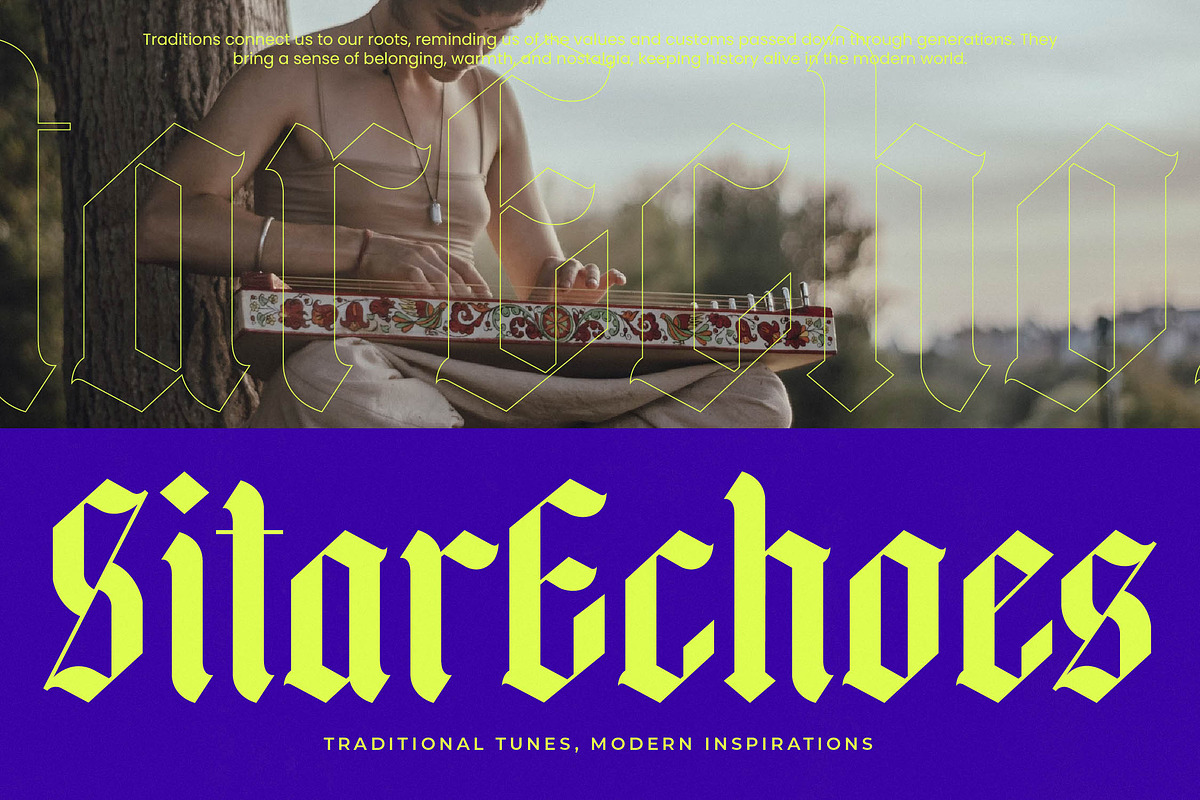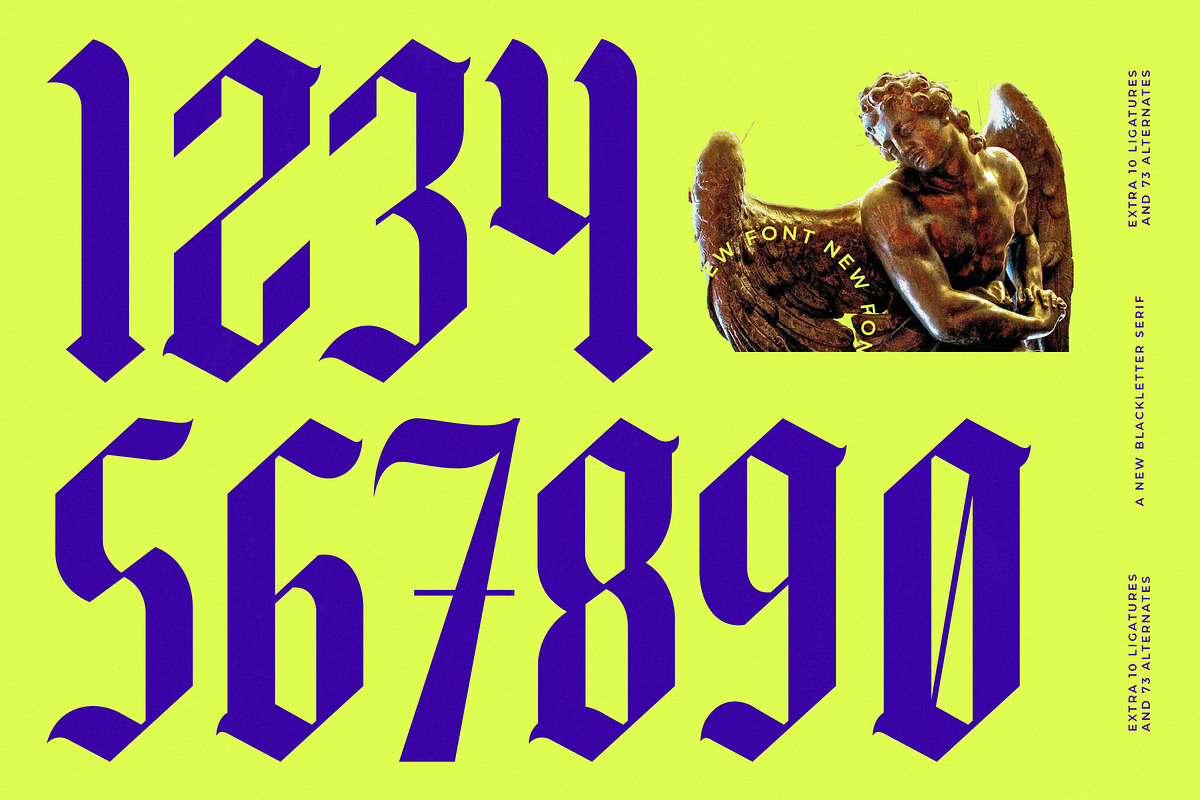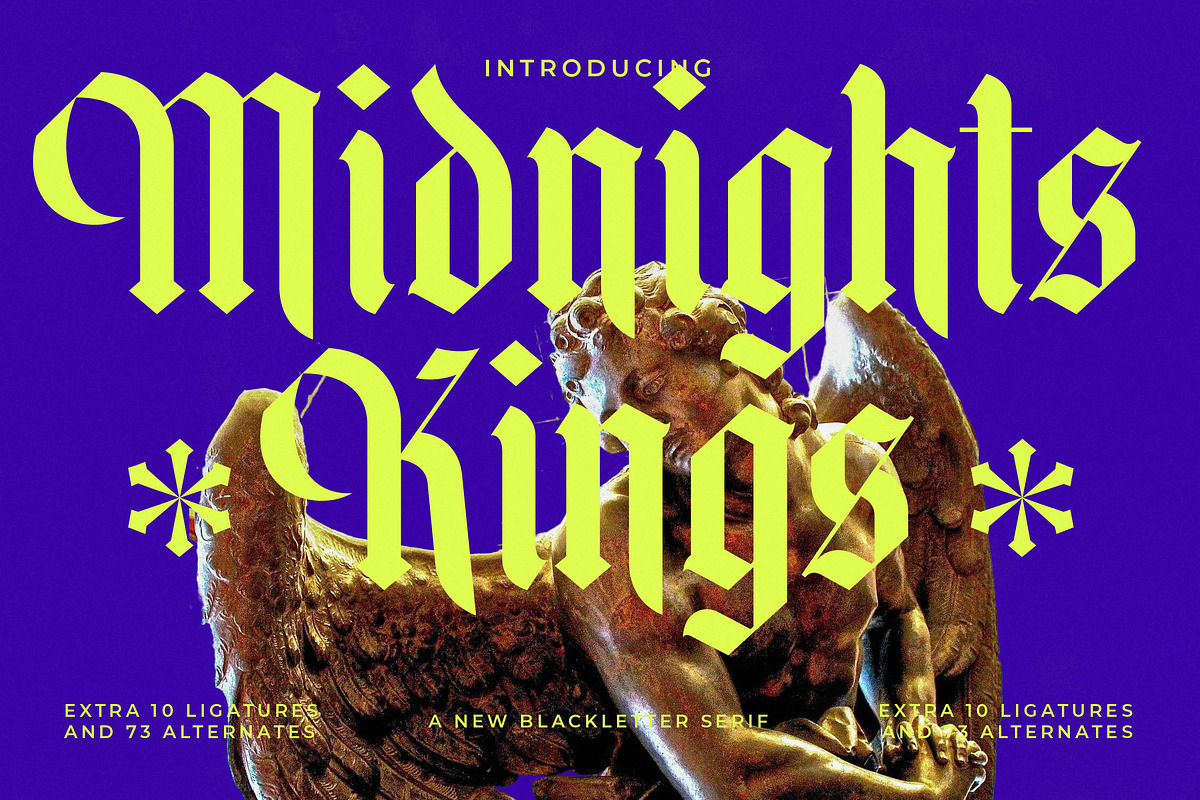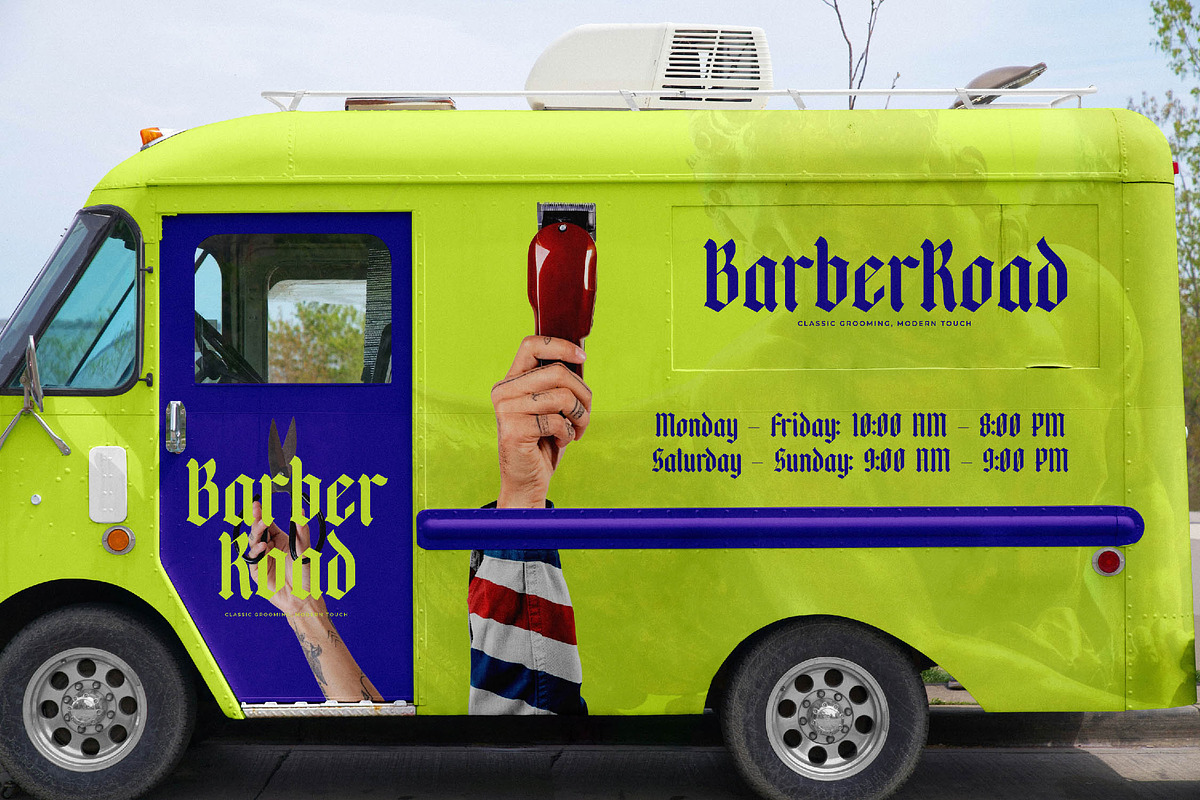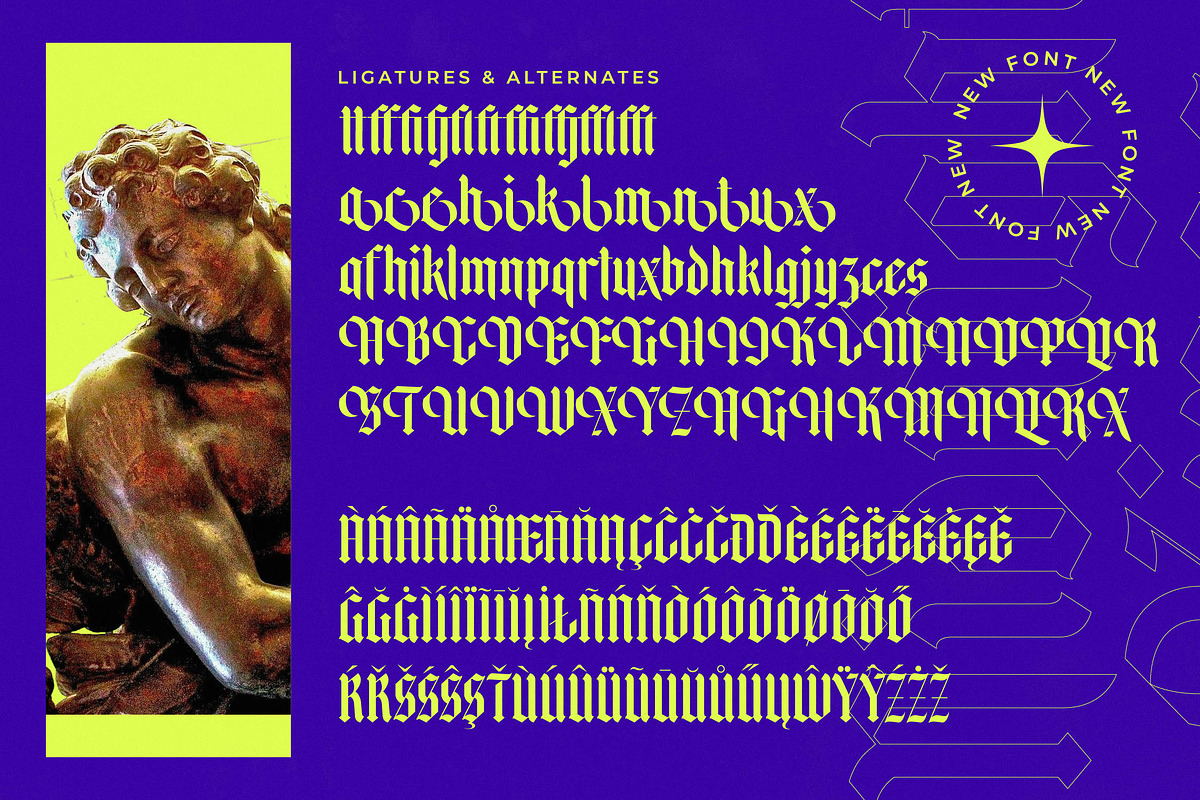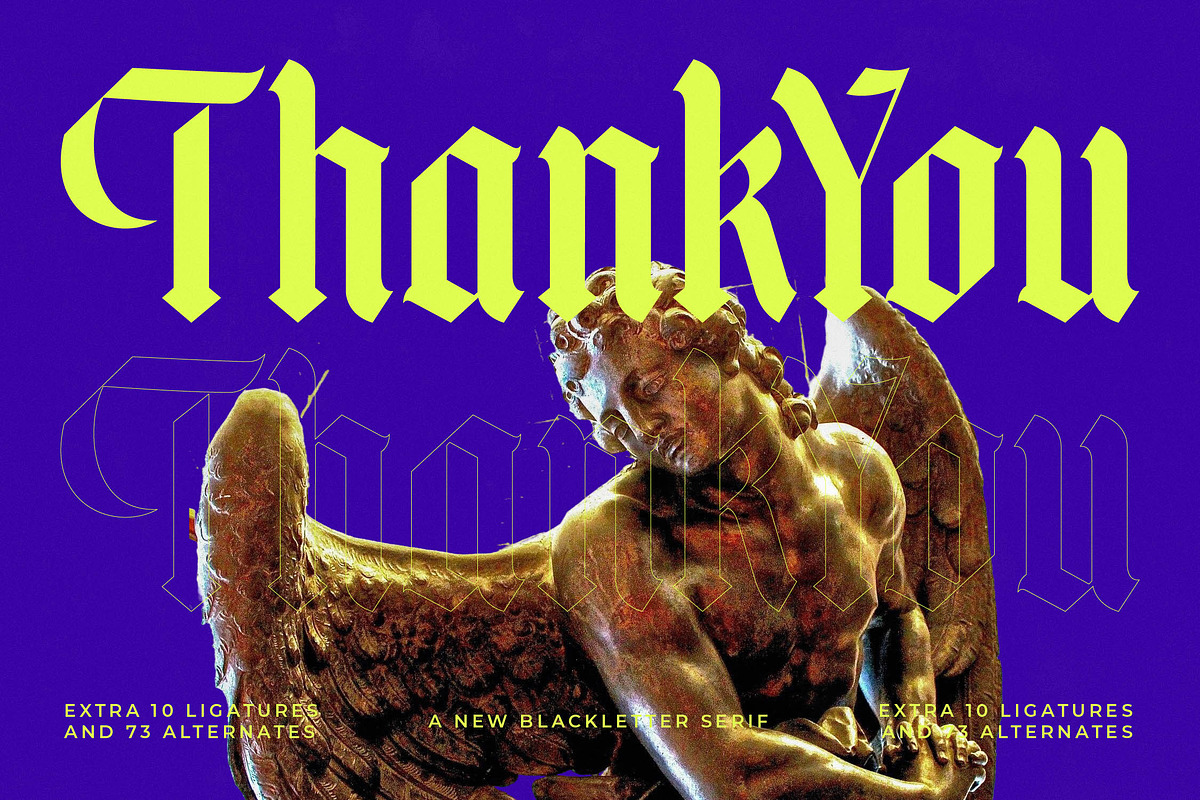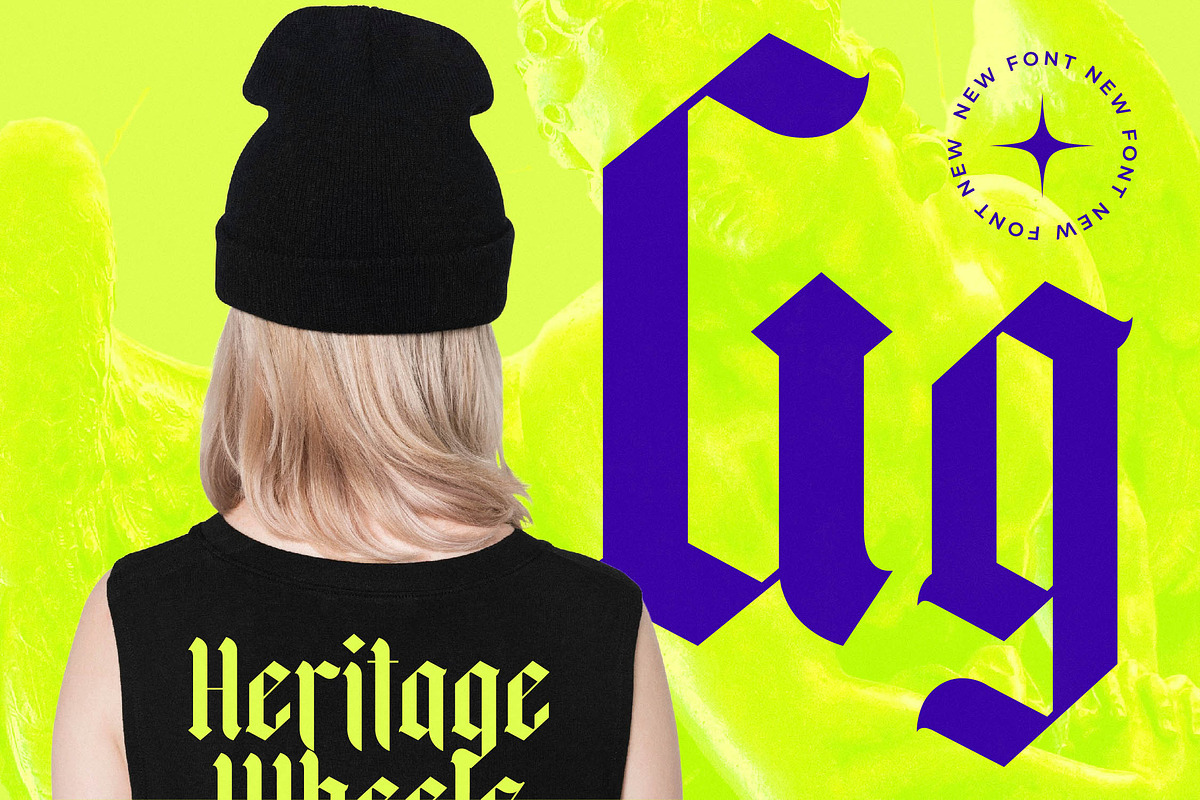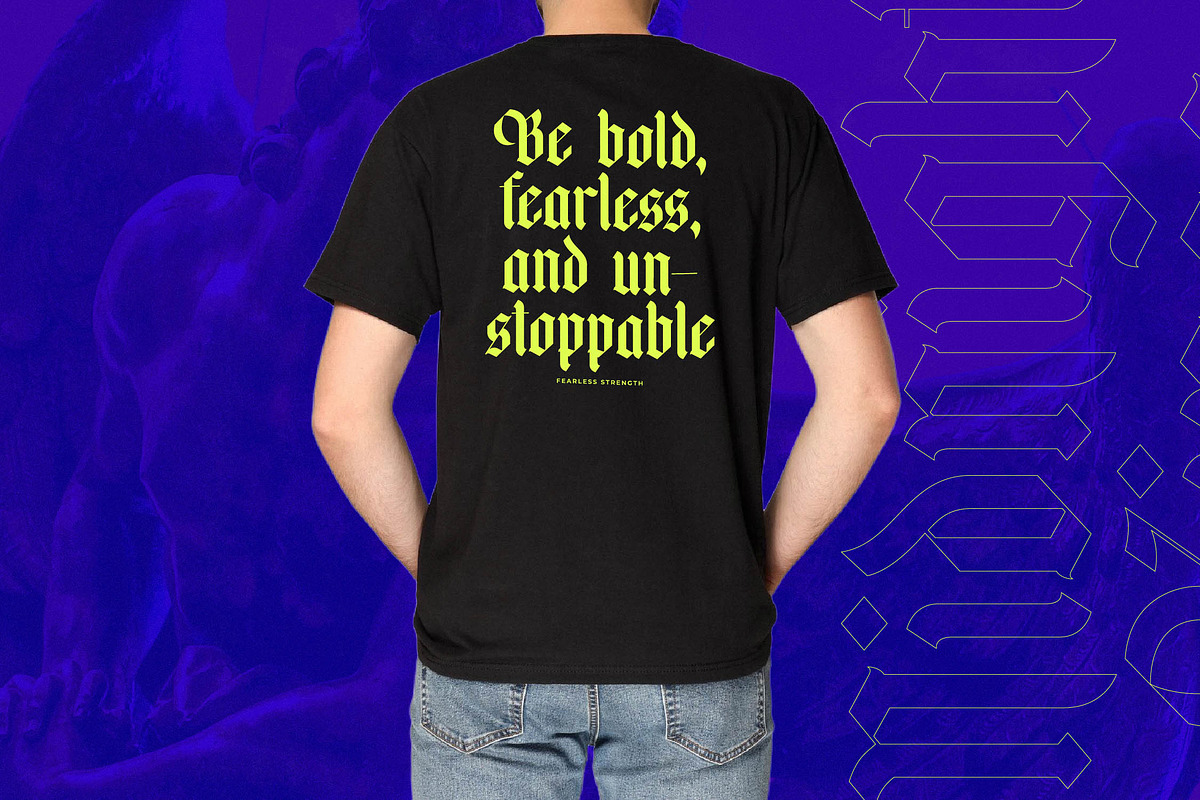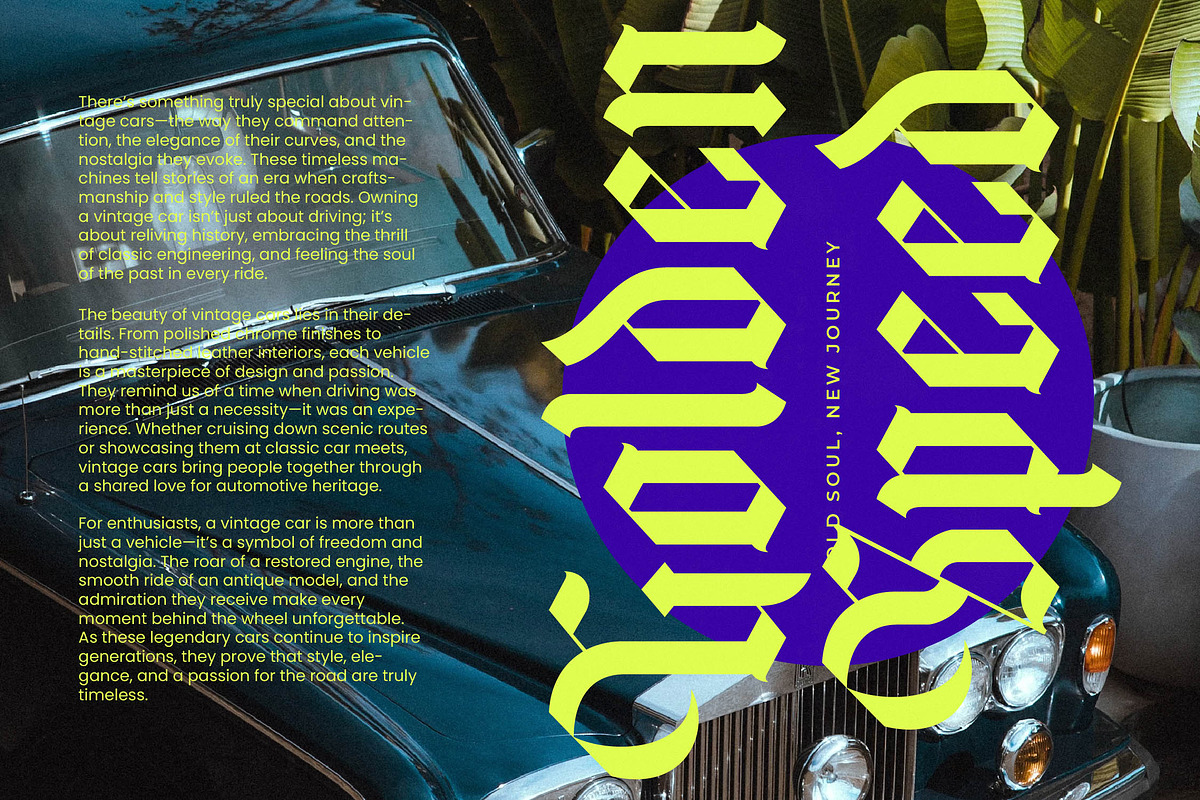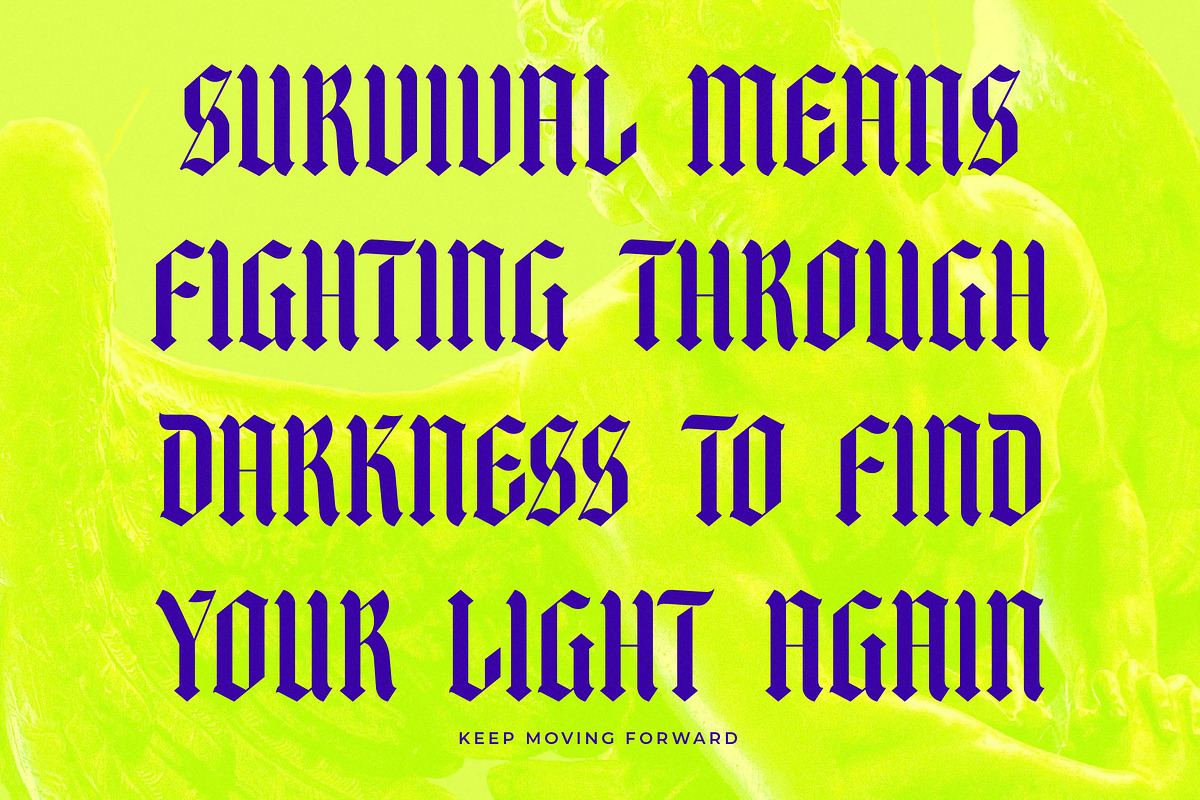
Midnights Kings Blackletter Serif
Elevate your visual identity with the hauntingly beautiful Midnights Kings, a typeface designed to bridge the gap between ancient tradition and contemporary rebellion. This font captures the essence of nocturnal royalty, offering a sophisticated edge that demands immediate attention.
Inspired by the intricate strokes of medieval manuscripts and the raw power of street culture, this typeface blends classical anatomy with sharp, aggressive terminals. It evokes the atmosphere of a moonlit cathedral, where timeless art meets the pulse of the underground.
The soul of this font lies in its ability to provide a modern serif display feel with an unapologetic luxury typography aesthetic. Every curve is crafted for a high-contrast serif experience that delivers a powerful branding impact while remaining a versatile editorial font for high-end layouts.
Perfectly aligned with the current modern serif trend, this typeface addresses the growing demand for editorial display fonts that break the mold of traditional legibility. It is the ultimate choice for creators seeking character-driven typography that feels both nostalgic and forward-thinking.
This versatile tool is ideal for high-impact logo design and comprehensive branding projects that require a unique voice. Whether you are working on editorial layouts, luxury packaging, an avant-garde wedding invitation, or high-concept fashion lookbooks, it provides the perfect stylistic anchor.
This professional package includes a robust set of ligatures and creative alternates to expand your typographic possibilities. With extended multilingual support and a full suite of international characters, it ensures your message resonates across borders while maintaining its distinct flair.
- Ligature 10 Alternate 73